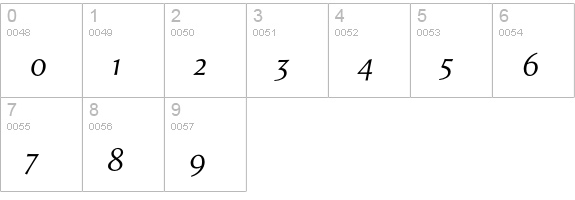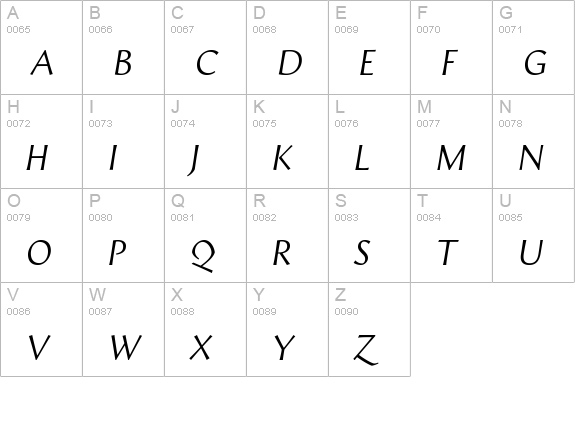
ShellSansExpert-Italic Font Details
ShellSansExpert-Italic is a distinctive, italic variant in the ShellSansExpert typeface family \xE2\x80\x94 well suited to design and typography projects.
Introducing ShellSansExpert-Italic, a sleek and sophisticated font that effortlessly combines elegance with a touch of modernity. This font is perfect for those seeking to add a touch of flair and sophistication to their design projects. Featuring its unique italic style, ShellSansExpert-Italic provides a sense of movement and dynamism, making it ideal for capturing attention and creating visually stunning designs. Whether you're designing a logo, creating eye-catching headlines, or crafting invitations, this font is sure to make a lasting impression. But what sets ShellSansExpert-Italic apart from the rest? Not only does it exude style and sophistication, but it also offers the added benefit of being free. That's right, this font is freely available to download at FontsMarket.com. Now you can elevate your design projects without breaking the bank. With its clean lines and expertly crafted curves, ShellSansExpert-Italic is a versatile font that can seamlessly integrate into a variety of design styles. Its legibility ensures that your message will be easily conveyed, while its italic style adds a touch of personality and uniqueness. Whether you're a professional designer or a casual hobbyist, ShellSansExpert-Italic is a font that will inspire creativity and bring your projects to life. Its timeless appeal and modern twist make it a must-have addition to any font collection. So why wait? Take advantage of this opportunity to download ShellSansExpert-Italic for free at FontsMarket.com and unlock a world of design possibilities. Elevate your projects, captivate your audience, and unleash your creativity with this sleek and sophisticated font.